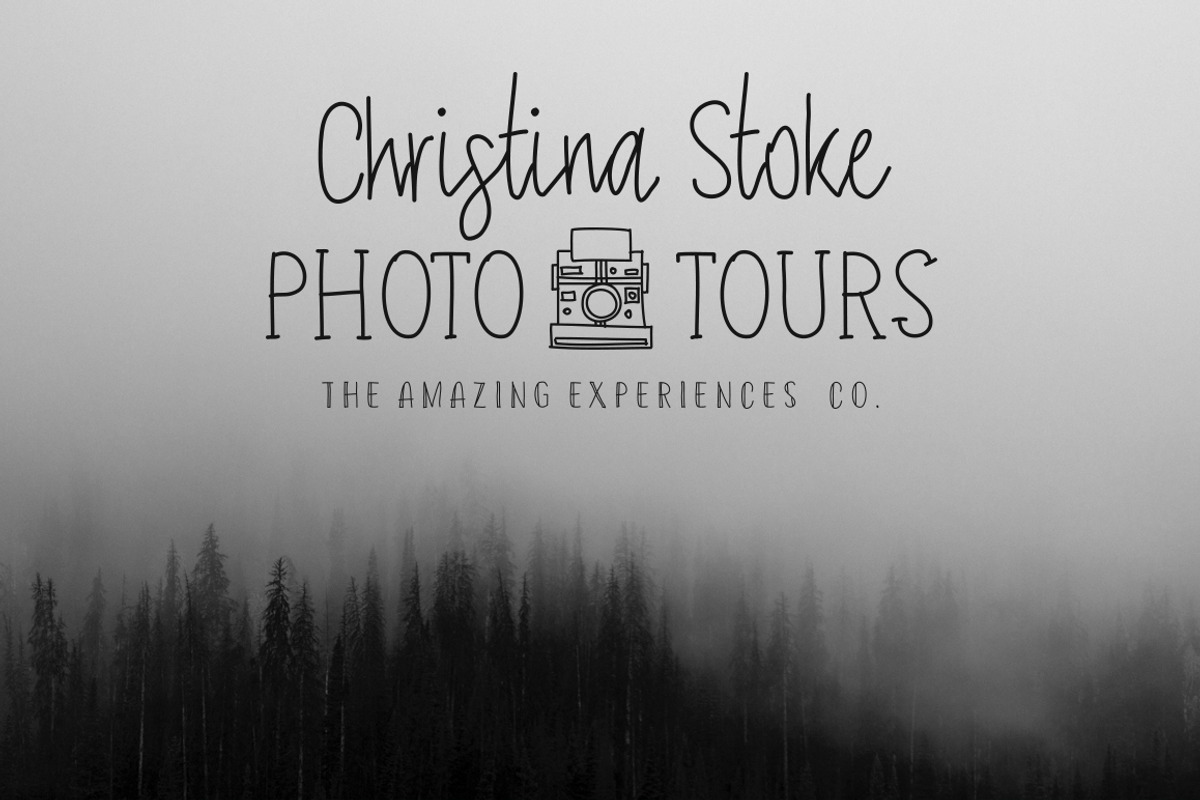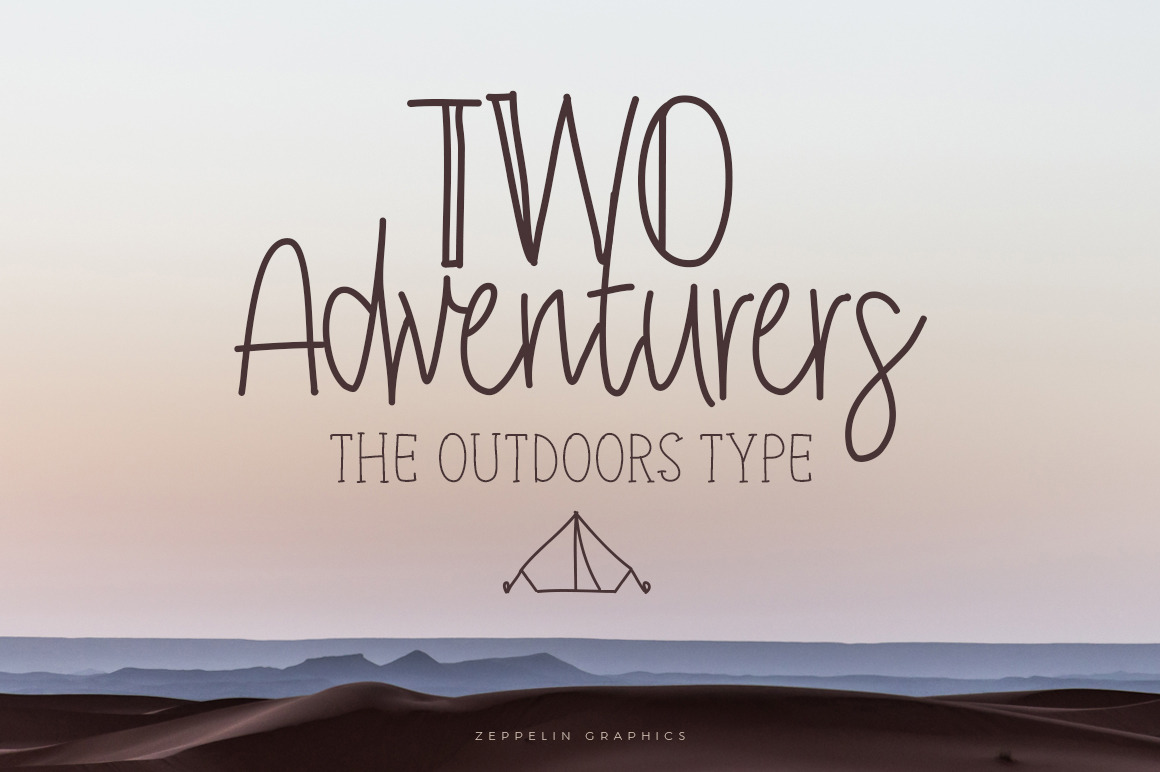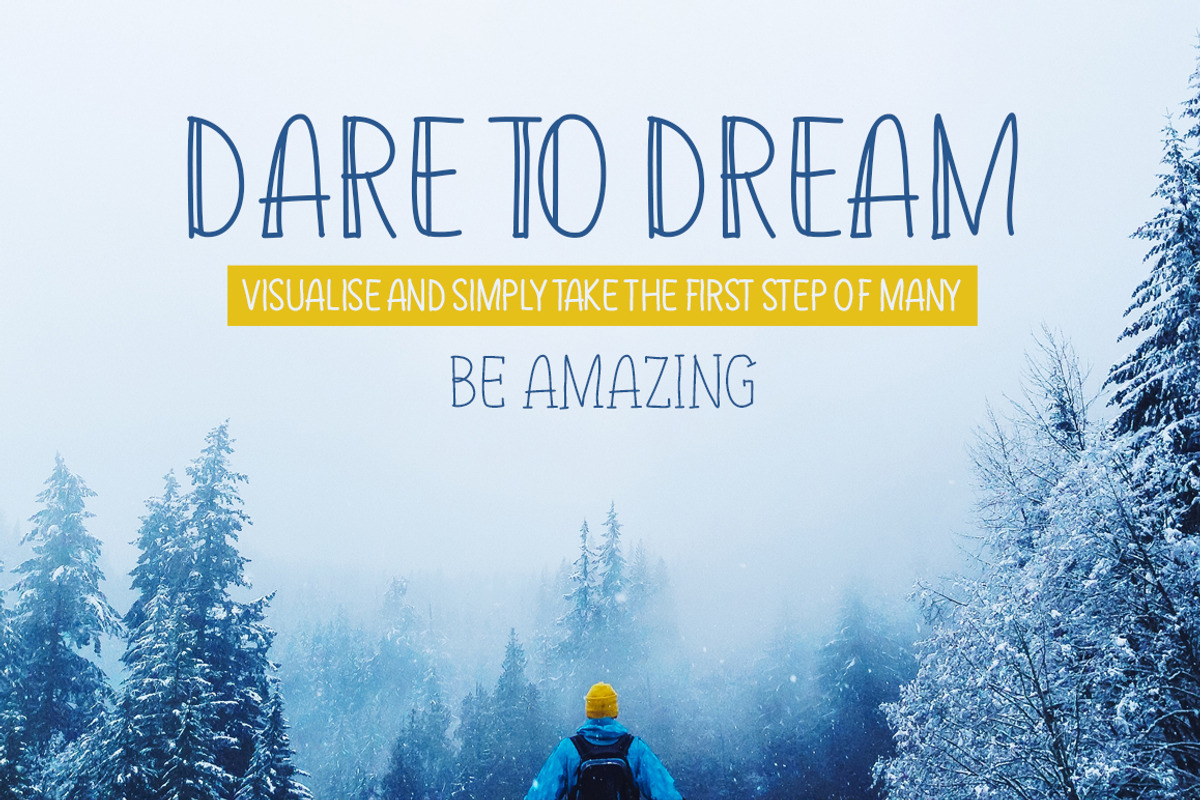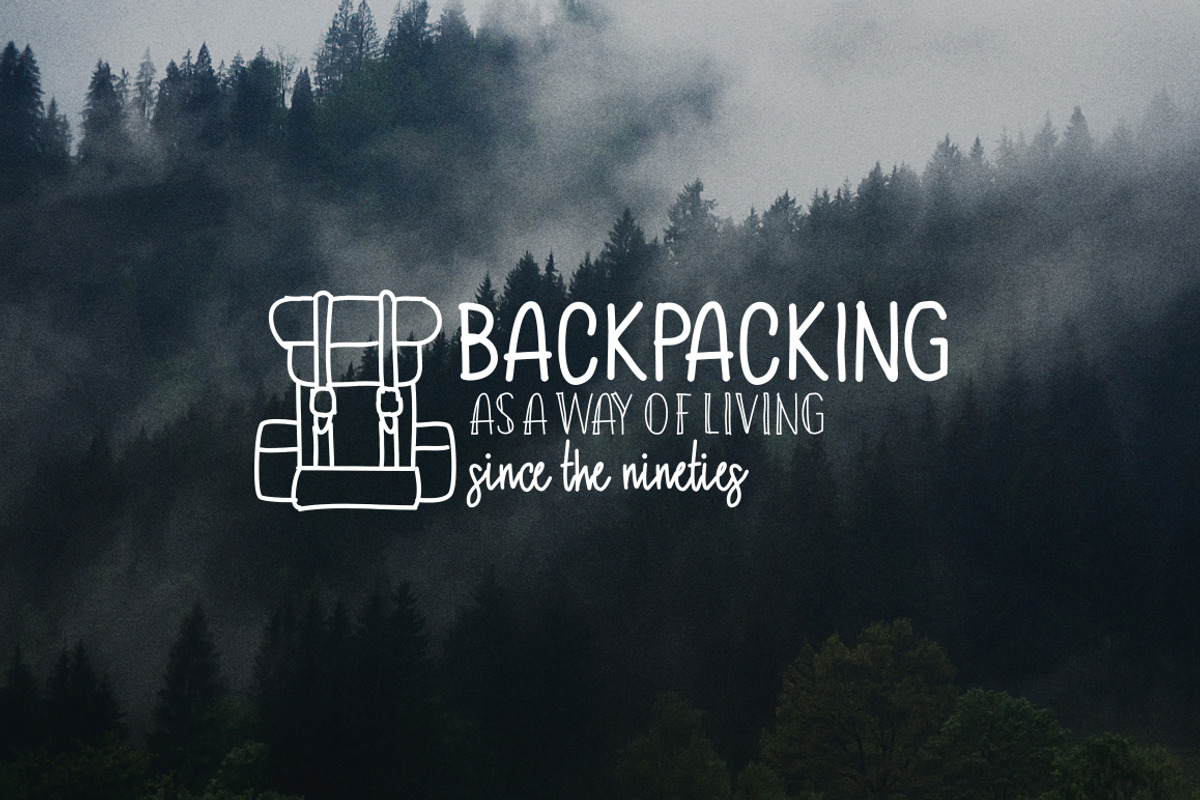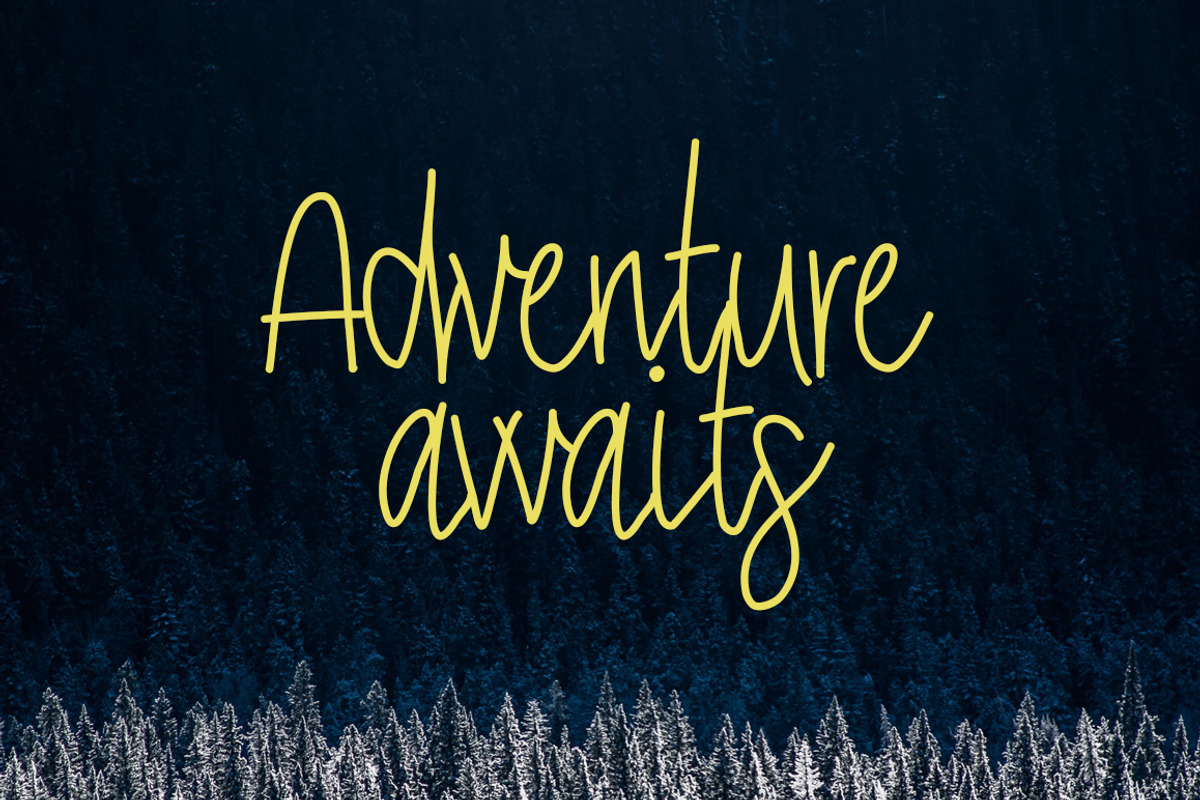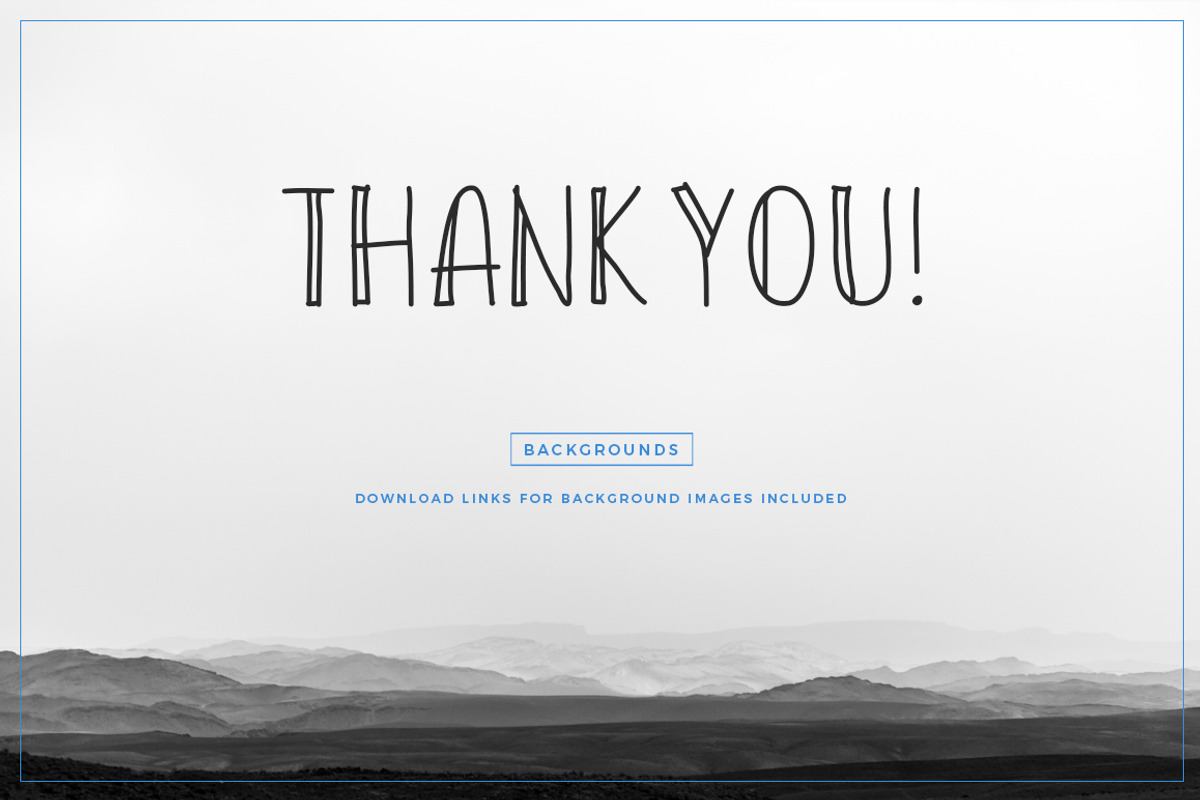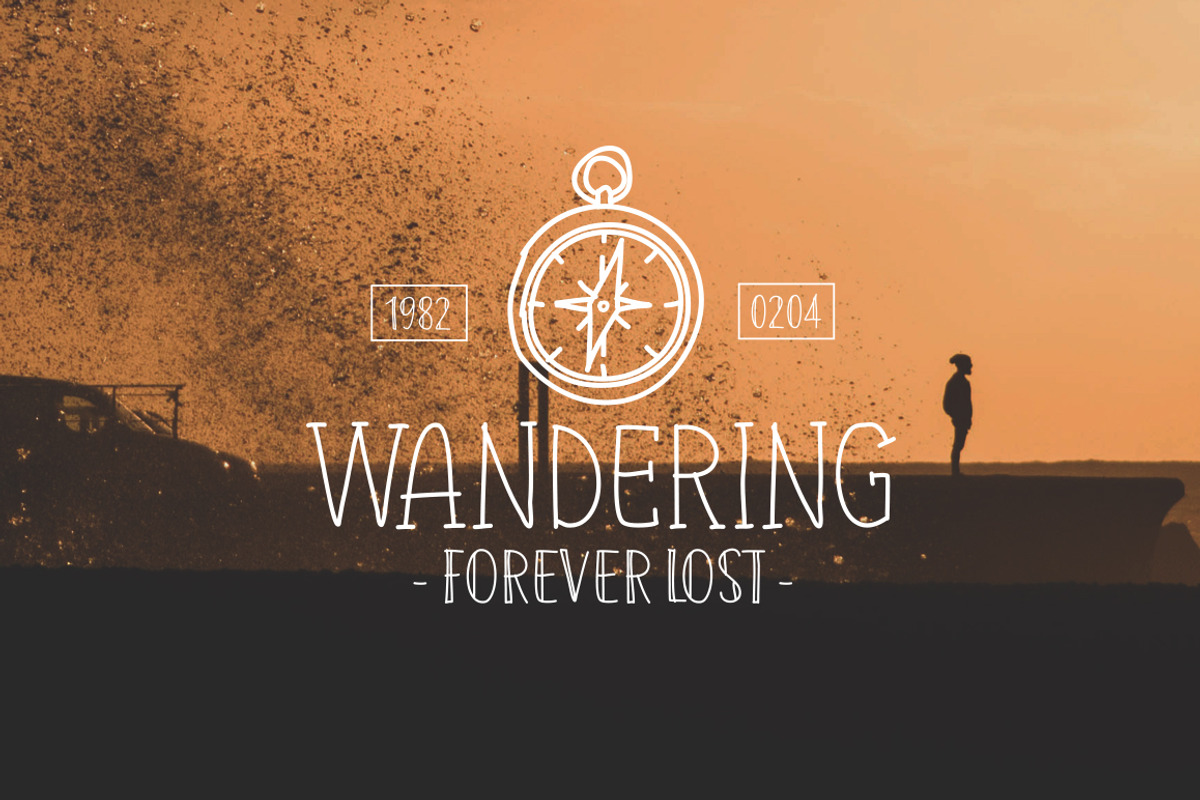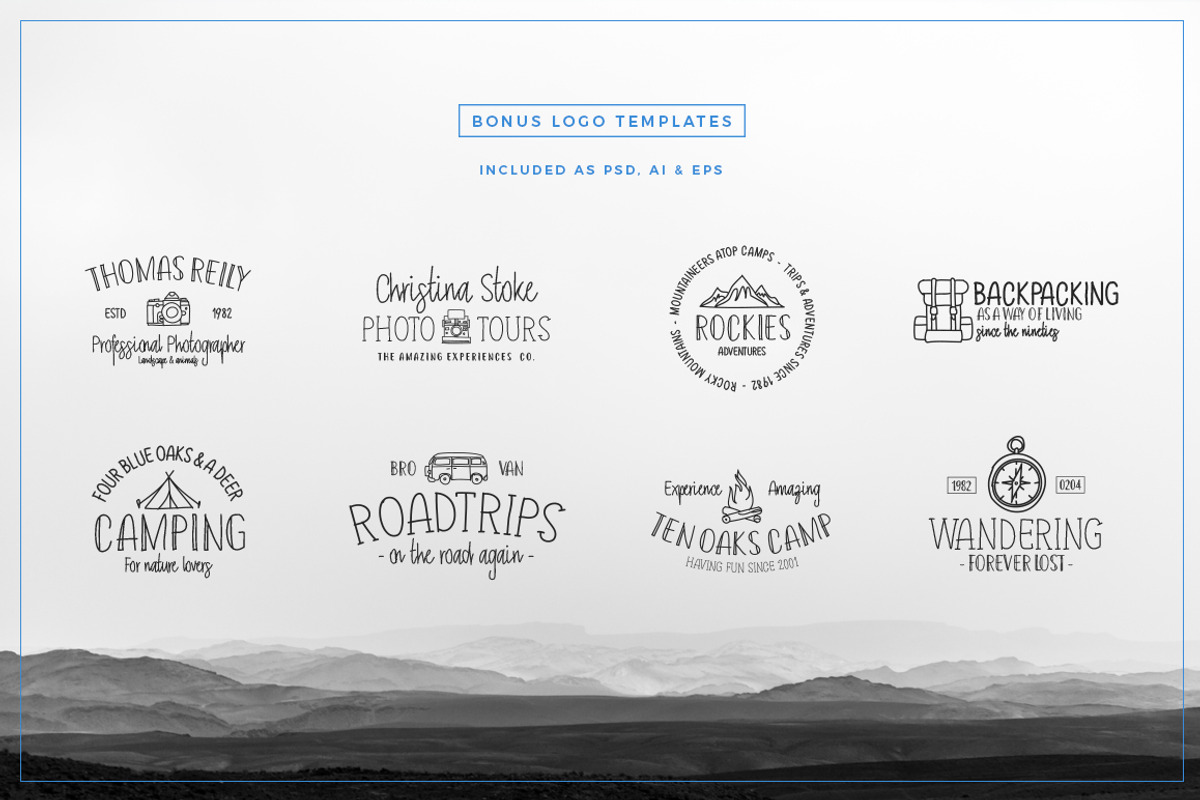
Two Adventurers Font + Bonus
Two adventurers is a type that loves the outdoors but it's not only for the outdoors lovers, no no, anyone can enjoy this adventurous versatile font that comes as regular and bold and also packs a great stylish version and a cool serif uncle! And to top it all off we also included 20 bonus hand drawn vector icons that you will simply love!
- Two Adventurers -a lovely outdoors nature loving script (.ttf)
- Two Adventurers Bold - The bold adrenaline lover (.ttf)
- Two Adventurers Style - The adventure loving cousin (.ttf)
- Two Adventurers Serif - A true safari enthusiast - only uppercase (.ttf)
- Uppercase and lowercase letters (the serif version has only uppercase)
- Numerals, punctuation and ligatures
- 100% hand drawn